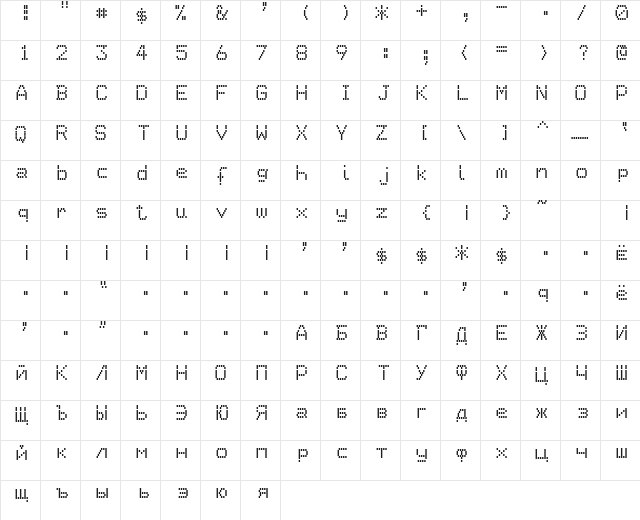
Epson1 Regular
Design Context for Epson1 Typeface
Epson1 takes a measured approach to typography — its balanced proportions and neutral character make it a reliable workhorse for both digital and print work.